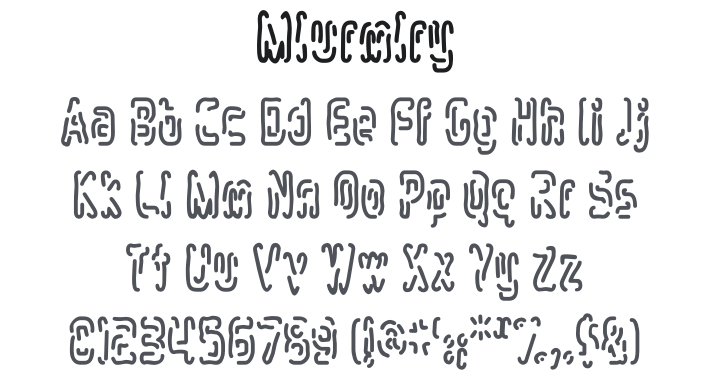
Mlurmlry Font
About Mlurmlry
Mlurmlry is a grubby, organic horror display typeface where every letterform looks like it was traced by a worm or left behind by a creeping organism — squirming, irregular strokes with a genuinely unsettling biological quality. Its slimy, distorted character is perfectly calibrated for disgust. Ideal for horror game titles, biological or pandemic-themed designs, sci-fi creature features, Halloween posters, and any project that needs a viscerally creepy, living-organism aesthetic.